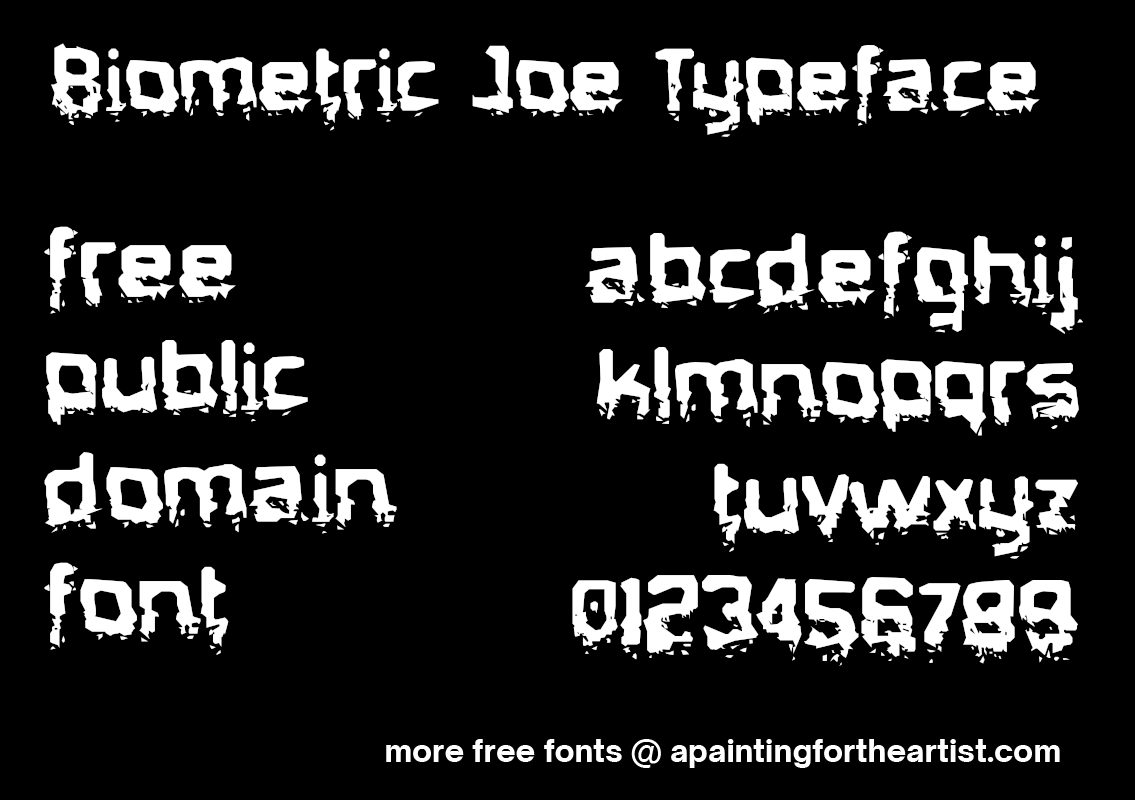
A free public domain licensed vintage, decorative, broken glass style font, Biometric Joe – designed by Typodermic Fonts of Japan between 1996 and 2001. The font would be suitable for use on headlines, titles, displays, flyers & posters, creative and artistic works. The font is free to use for most use cases, (see the license for exact details) including; commercial, non-commercial and personal works under the CC0 Public Domain license, and can be downloaded here.